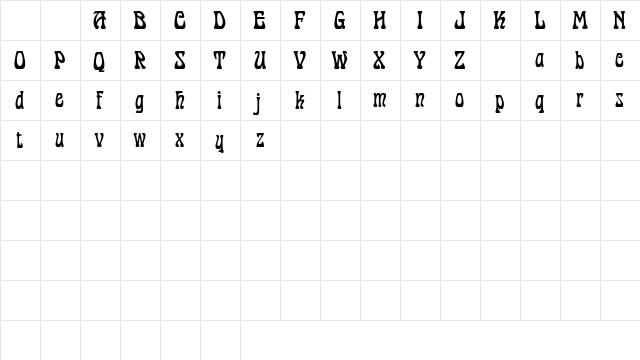
Pantagruel!" Regular
Design Context for Pantagruel!" Typeface
Pantagruel!" is a composed and adaptable typeface that performs quietly and consistently across a wide range of design contexts.